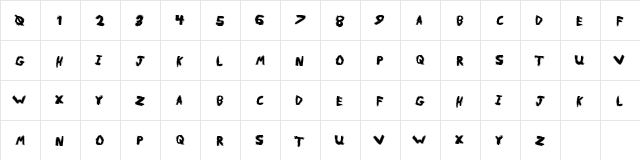
MetalReason Regular
| Foundry | Xerographer Fonts |
| Designer | Max Infeld Xerographer Fonts |
Design Context for MetalReason Typeface
MetalReason is a composed and adaptable typeface that performs quietly and consistently across a wide range of design contexts.